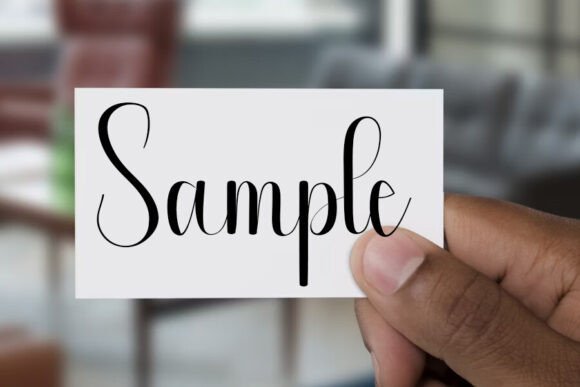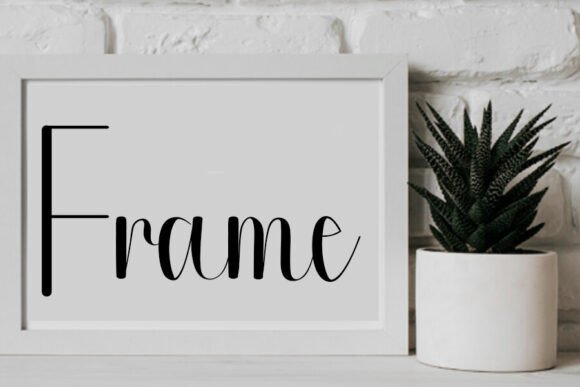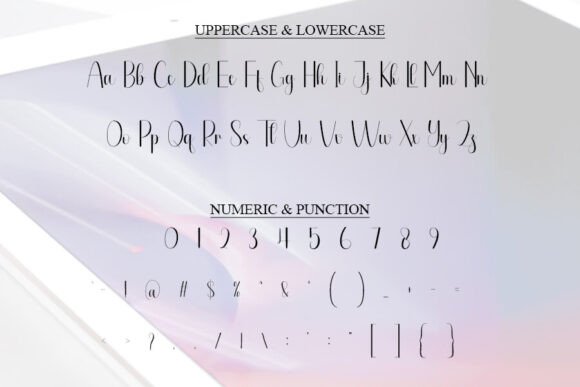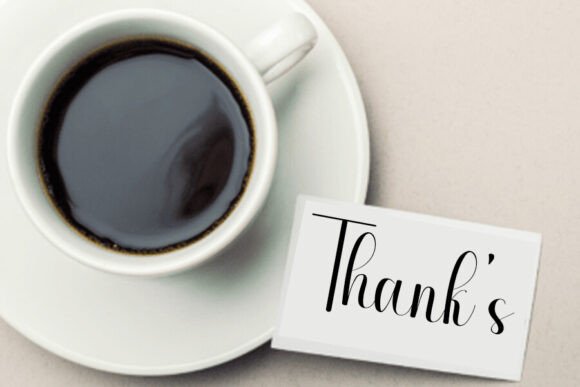
Unveil the Charm of Handmade Autography: Elevate Your Designs with a Distinctive Font
In the realm of typography, a well-chosen font can make all the difference in transforming a design from ordinary to extraordinary. For designers and crafters seeking a unique and fashion-forward font to add a touch of beauty to their creations, look no further than Handmade Autography. This distinctive font is poised to become your go-to choice for a wide range of design projects, from YouTube banners and logos to wedding invitations, ID cards, flyers, and crafts.
The Essence of Handmade Autography
Handmade Autography is more than just a font – it’s an artistic expression that brings a personal touch to your designs. Its synchronized blend of aesthetics and functionality makes it an ideal choice for businesses and individuals looking to elevate their brand identity. The font’s simplicity is, paradoxically, its most striking feature. In a crowded marketplace of fonts, Handmade Autography’s understated elegance allows it to stand out, offering a refreshing alternative to more ornate or overused typefaces.
One of the key advantages of Handmade Autography is its versatility. This font can seamlessly adapt to various design needs, making it a valuable addition to any designer’s toolkit. Here are just a few examples of how you can use Handmade Autography to enhance your projects:
• YouTube Banners: Create eye-catching banners that reflect your channel’s personality and style.
• Logos: Craft memorable and impactful logos that set your brand apart.
• Wedding Invitations: Add a touch of elegance and romance to your wedding invitations and stationery.
• ID Cards and Flyers: Give your ID cards and flyers a professional yet stylish look that captures attention.
• Crafts: Incorporate Handmade Autography into your craft projects for a personalized and artistic flair.
Why Choose Handmade Autography?
With so many fonts available, why should you choose Handmade Autography for your design projects? Here are a few compelling reasons:
• Unique Style: Handmade Autography offers a distinctive style that can help your designs stand out in a crowded marketplace.
• Ease of Use: Despite its unique look, Handmade Autography remains easy to read and use in various contexts.
• Customization: The font’s simplicity makes it an excellent choice for customization, allowing you to adapt it to your specific design needs.
• Growth and Prosperity: By choosing a font that is both aesthetically pleasing and functional, you’re investing in the growth and prosperity of your business or personal brand.
Let Your Creativity Soar
Handmade Autography is more than just a font – it’s a tool that can help bring your creative vision to life. Its unique style and versatility make it an ideal choice for designers and crafters looking to add a personal touch to their projects. Whether you’re looking to establish a strong brand identity or simply want to create beautiful designs, Handmade Autography can help you achieve your goals.
By incorporating Handmade Autography into your design workflow, you’re not just choosing a font – you’re embracing a design philosophy that values simplicity, elegance, and creativity. So why wait? Unveil the charm of Handmade Autography today and discover how this distinctive font can elevate your designs to new heights.
Author ABBAsalam
In conclusion, Handmade Autography is a game-changer for designers and crafters seeking a unique and versatile font to enhance their projects. Its blend of aesthetics and functionality, coupled with its simplicity and elegance, make it an ideal choice for a wide range of design applications. By choosing Handmade Autography, you’re not just selecting a font – you’re investing in a design solution that can help propel your business or personal brand towards growth and prosperity.
So, let your creativity soar with Handmade Autography. Explore its possibilities, and experience firsthand how this distinctive font can become the voice and vision of your artistry.